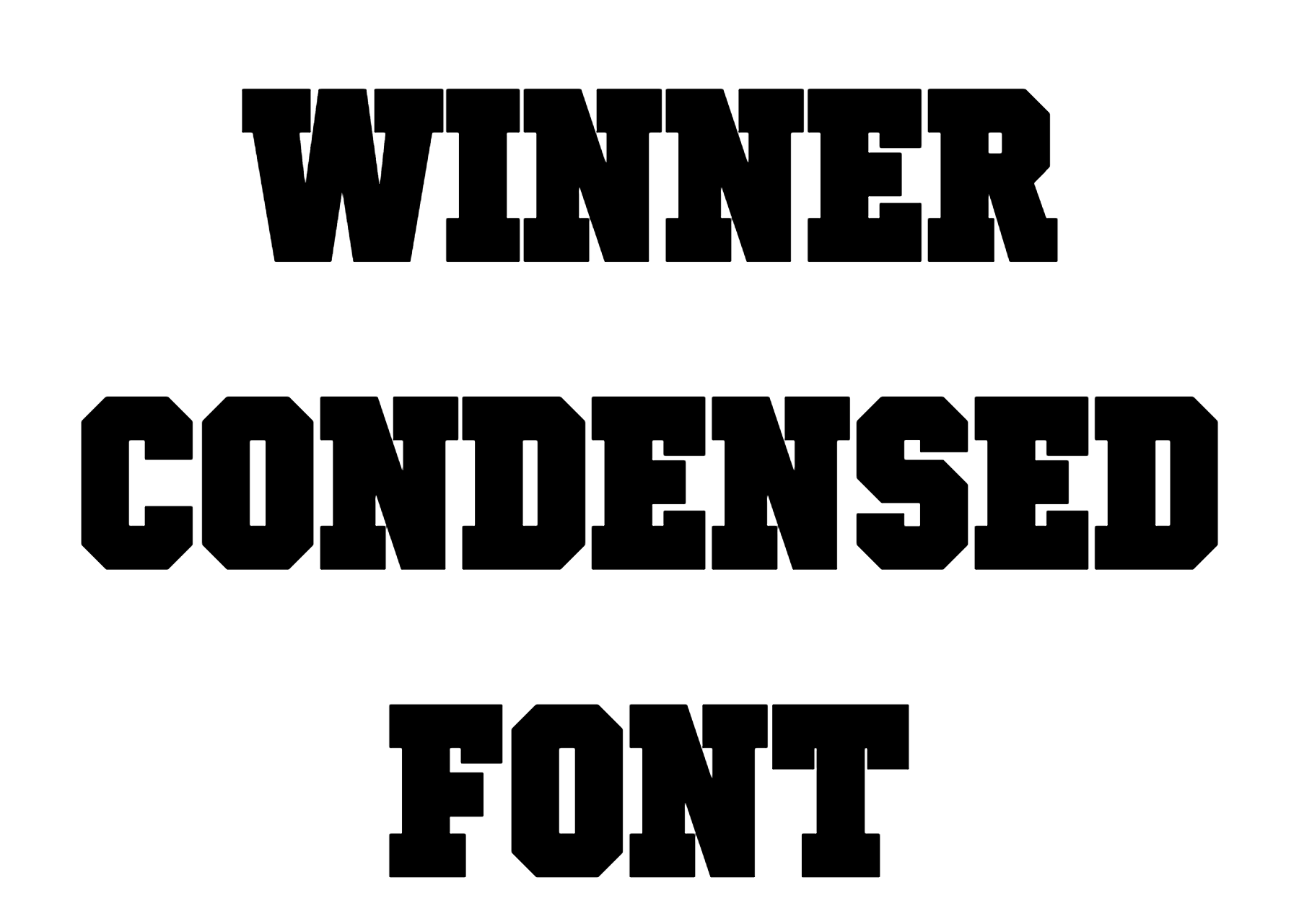
Winner Condensed Font
Winner Condensed
- Designer: Christoph Koeberlin
- Publisher: sportsfonts.com
- Category: Basic font
- Glyphs: 502
- Languages: English, Spanish, French, German, Portuguese and Italian, plus Greek characters
What You Can Type With Winner Condensed
Winner Condensed covers the full alphabet in upper and lowercase, plus all ten numbers, so you can set names, dates and prices without switching fonts. Common punctuation such as &, !, ? and @ is included as well. It also has the accented letters you need for Spanish, French, German, Portuguese and Italian. On top of that, it includes Greek characters.
Where Winner Condensed Works Best
Winner Condensed is a natural fit for everyday text, websites and clean logos. Fonts like this are workhorses: use them for body text, captions and anything people need to read quickly.
Does Winner Condensed support accented letters?
Yes. Winner Condensed includes the accented letters needed for Spanish, French, German, Portuguese and Italian, so it works for more than just English.
What fonts pair well with Winner Condensed?
Add a more decorative display font for the headline if your design needs extra personality.